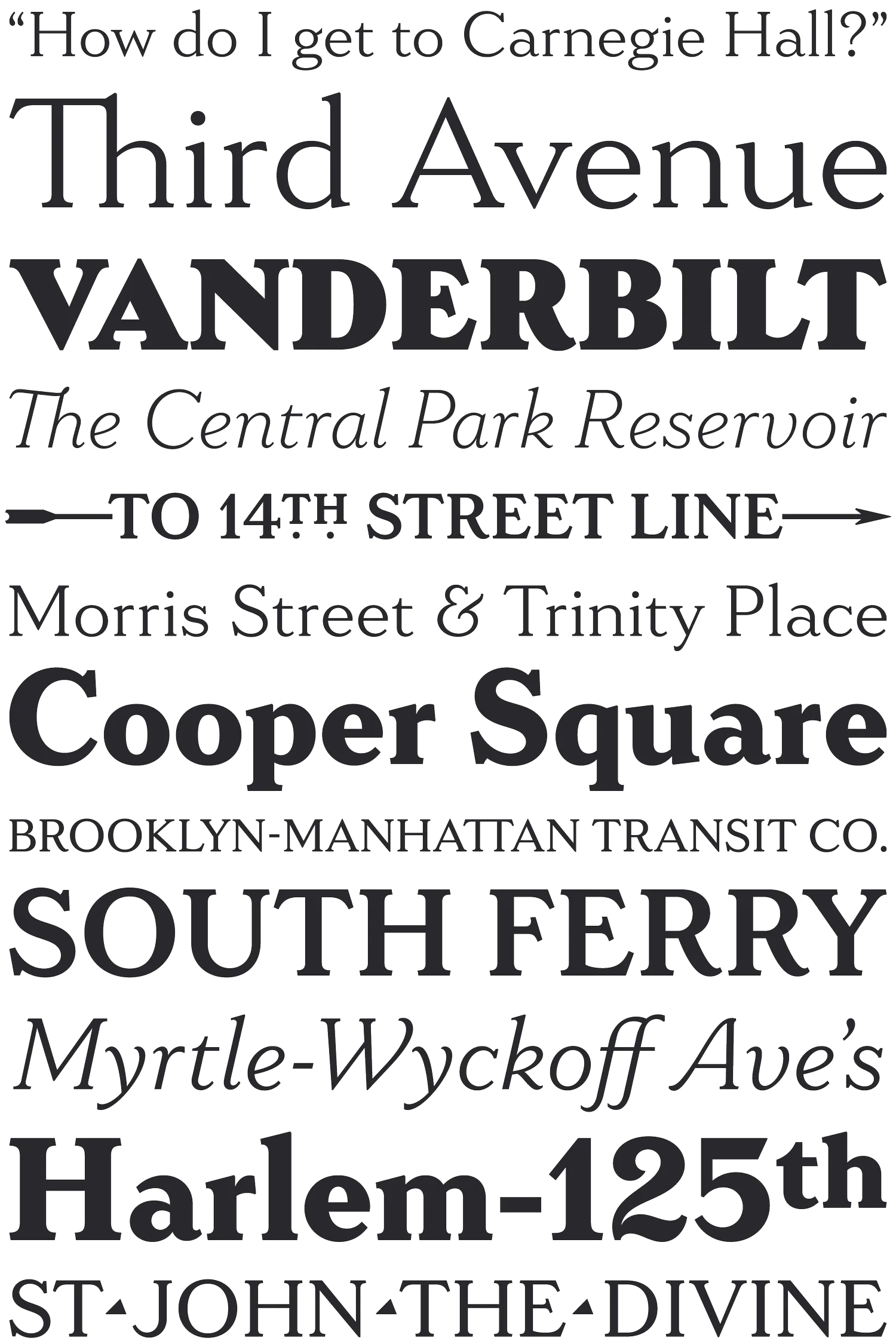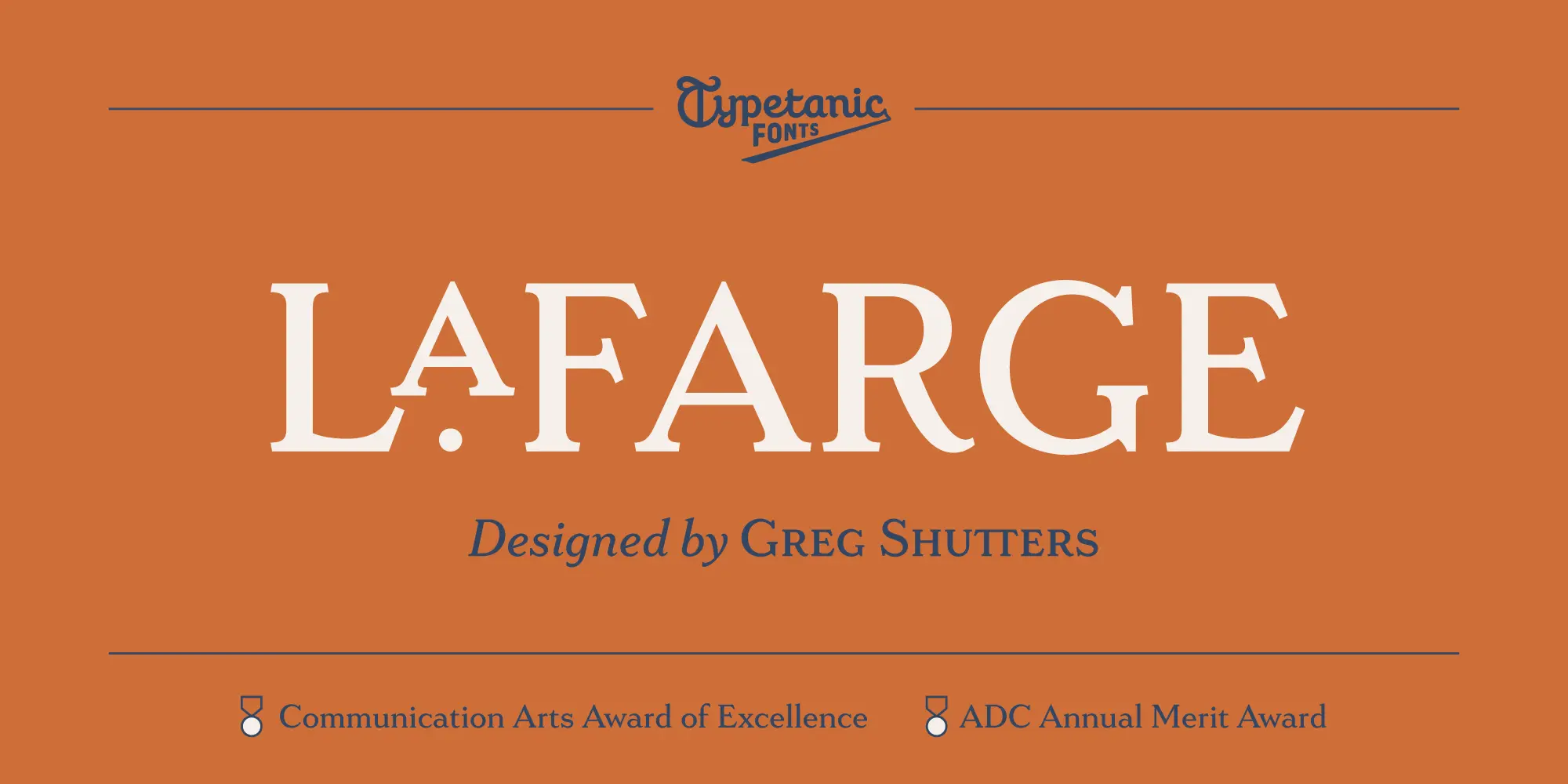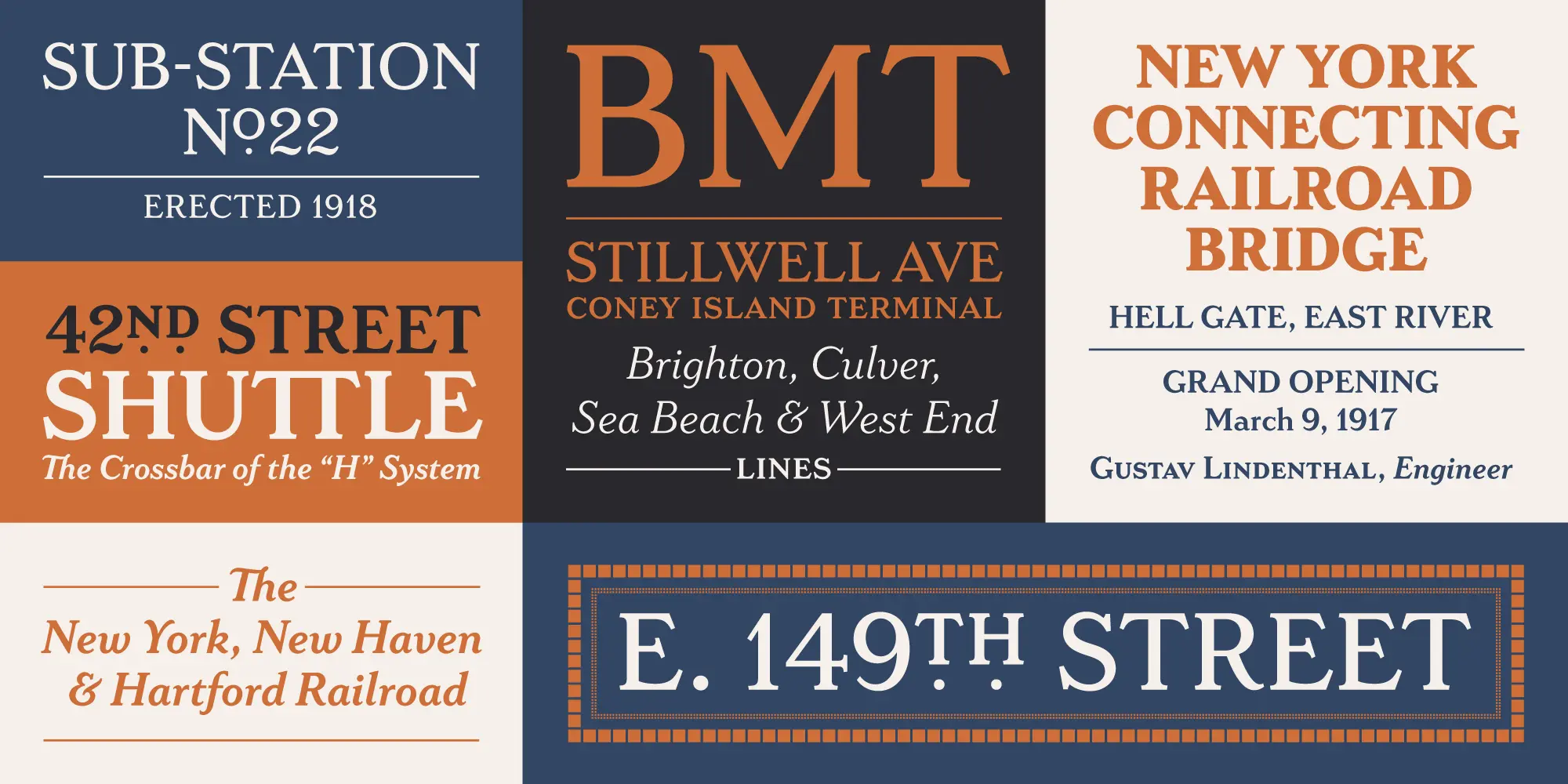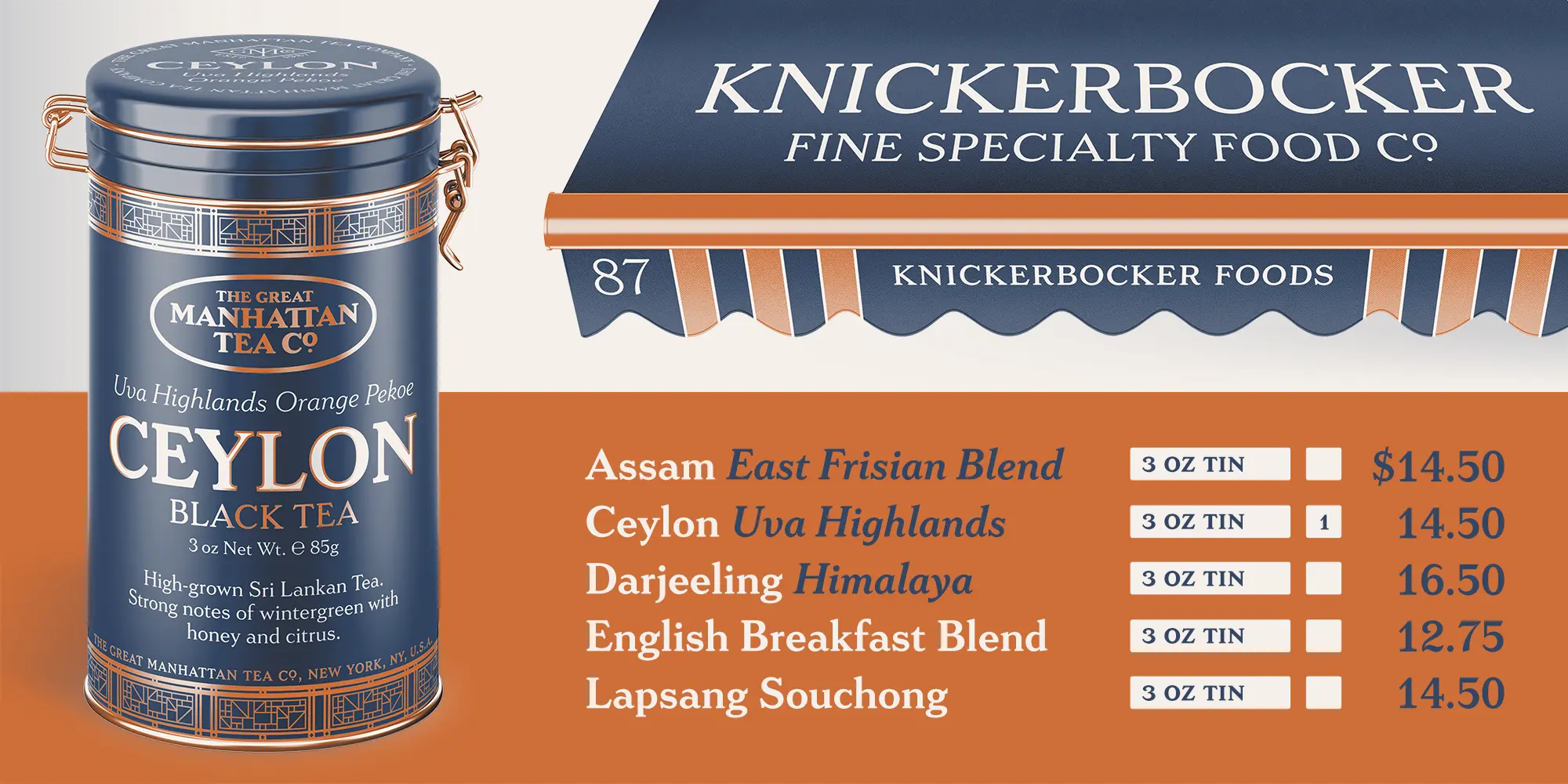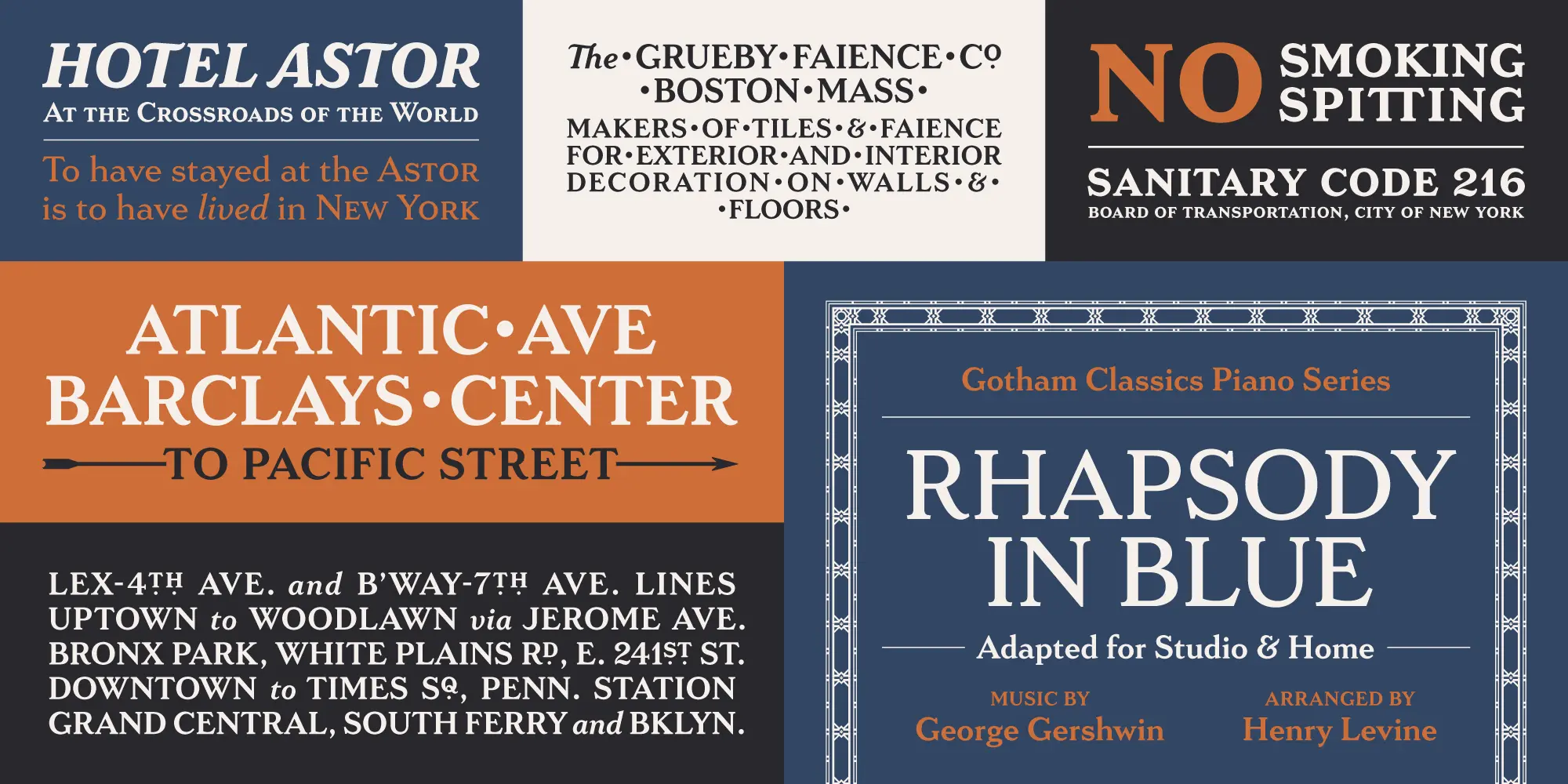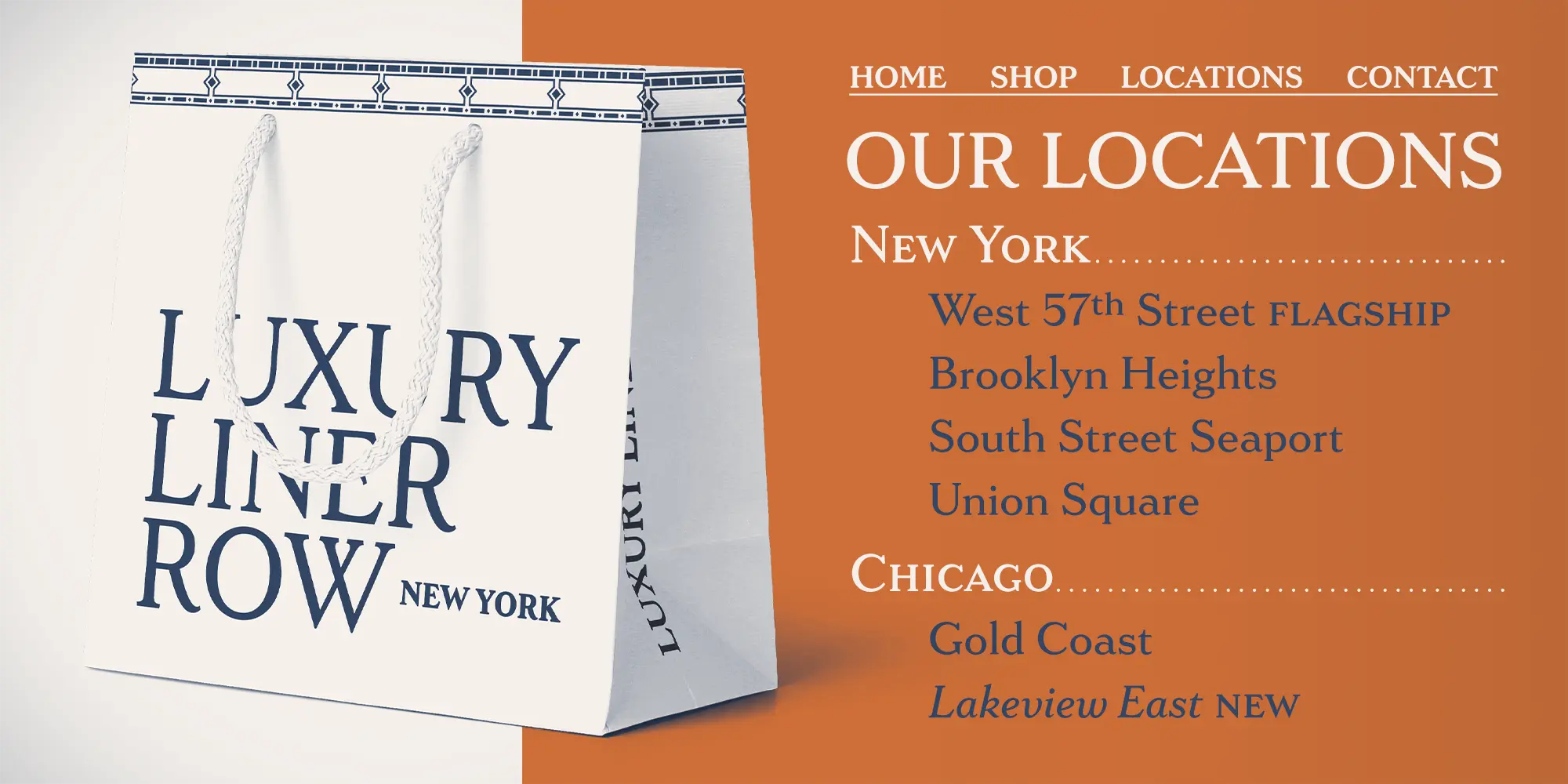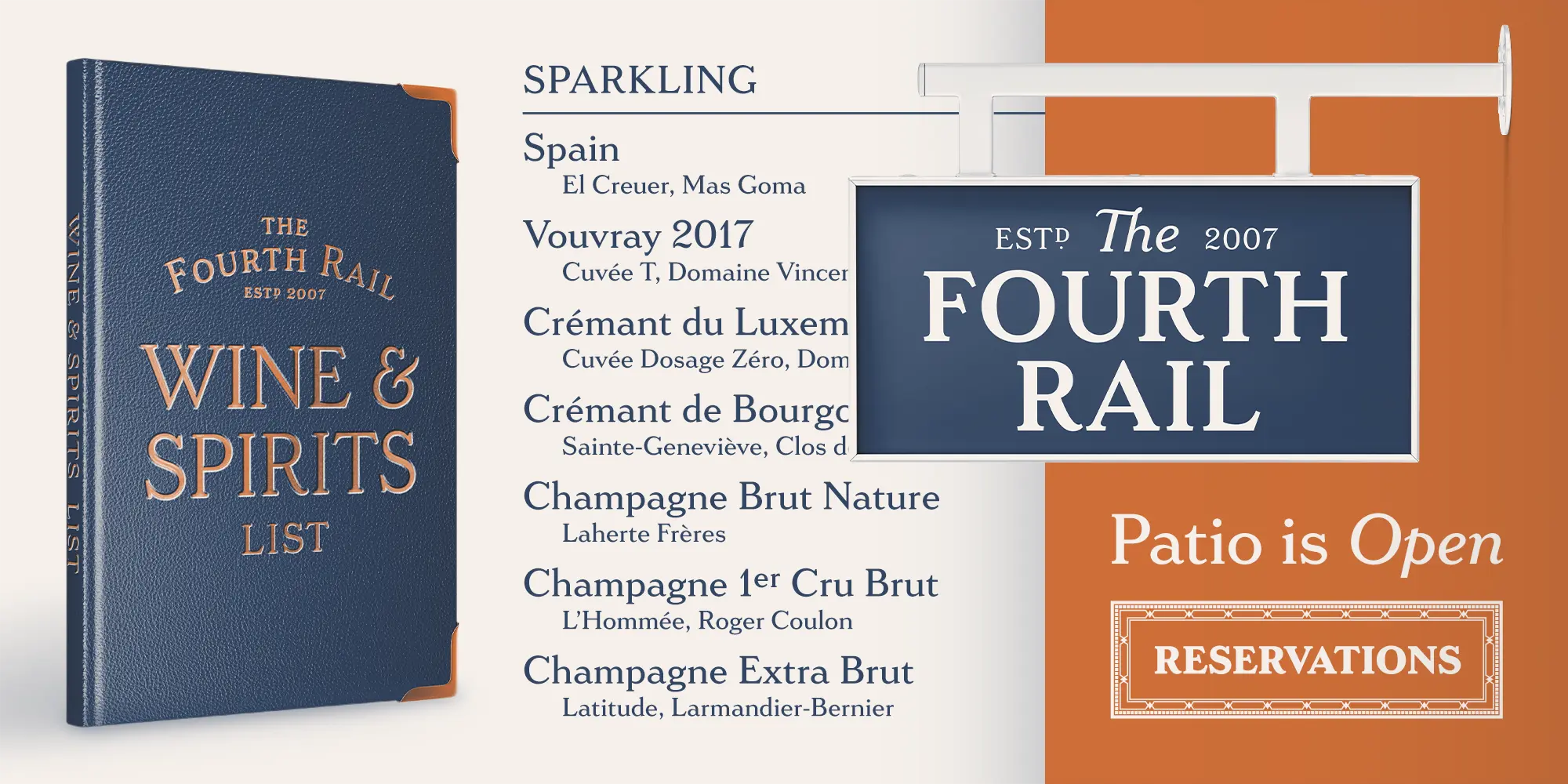
About LaFarge
LaFarge recreates the look of the delicate, handmade mosaic tile caps used in early-20th century New York City Subway stations, while remaining a readable typeface for both display and text in modern usage.
Named for Christopher Grant LaFarge, one of the original architects of the New York City Subway, the LaFarge typeface takes inspiration from the handmade, historic signage in a modern, modular typeface. In addition to caps and figures inspired directly by the original source material, I added an evenly readable lowercase inspired by late-19th and early 20th-century typefaces like Della Robbia, Windsor, and Cheltenham. The result is an elegant serif typeface with a historic industrial sensibility.
LaFarge can be used in both text and display sizes but is ideal for architectural use, specifically in historic preservation projects that require lettering that mimics what was used on buildings, memorials, and plaques from the late 19th and early 20th centuries. Many architectural restoration projects — including some undertaken by the New York City Subway — use text typefaces like Times New Roman or Bookman that look out of place in historic signage.
LaFarge has been awarded the 2021 Communication Arts Award of Excellence and the ADC Annual Merit award, and was included in the 2020 STA 100.